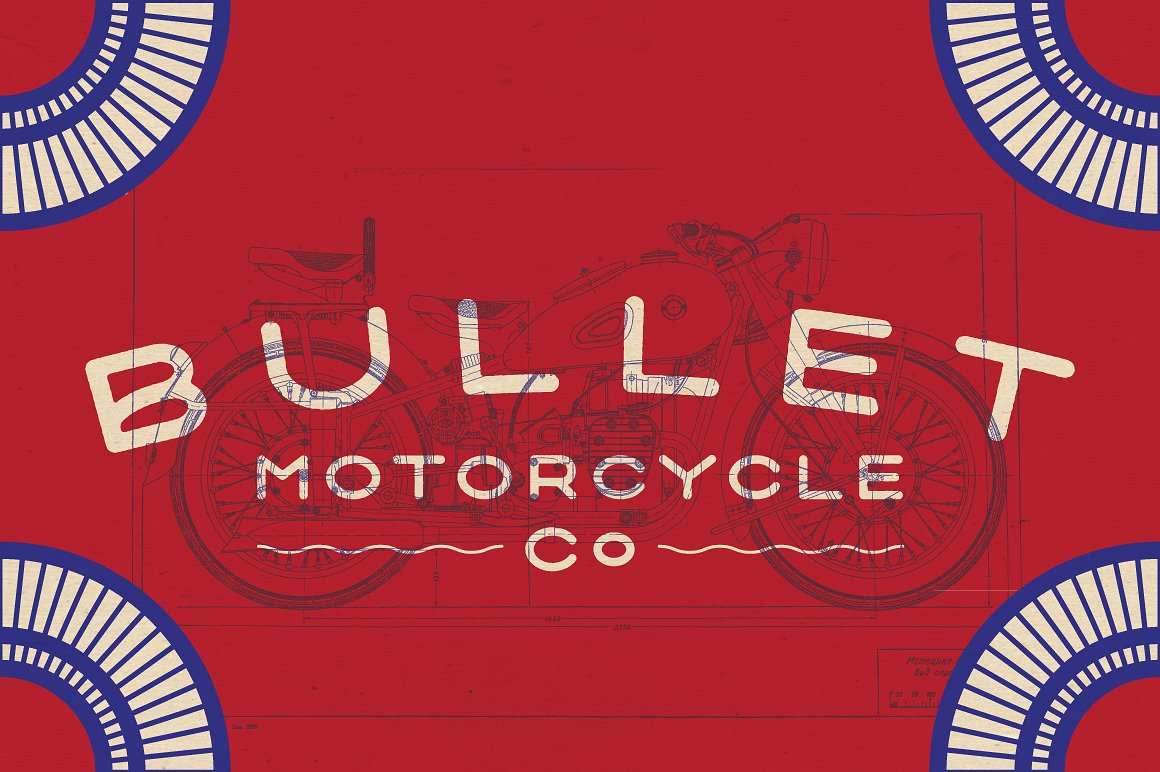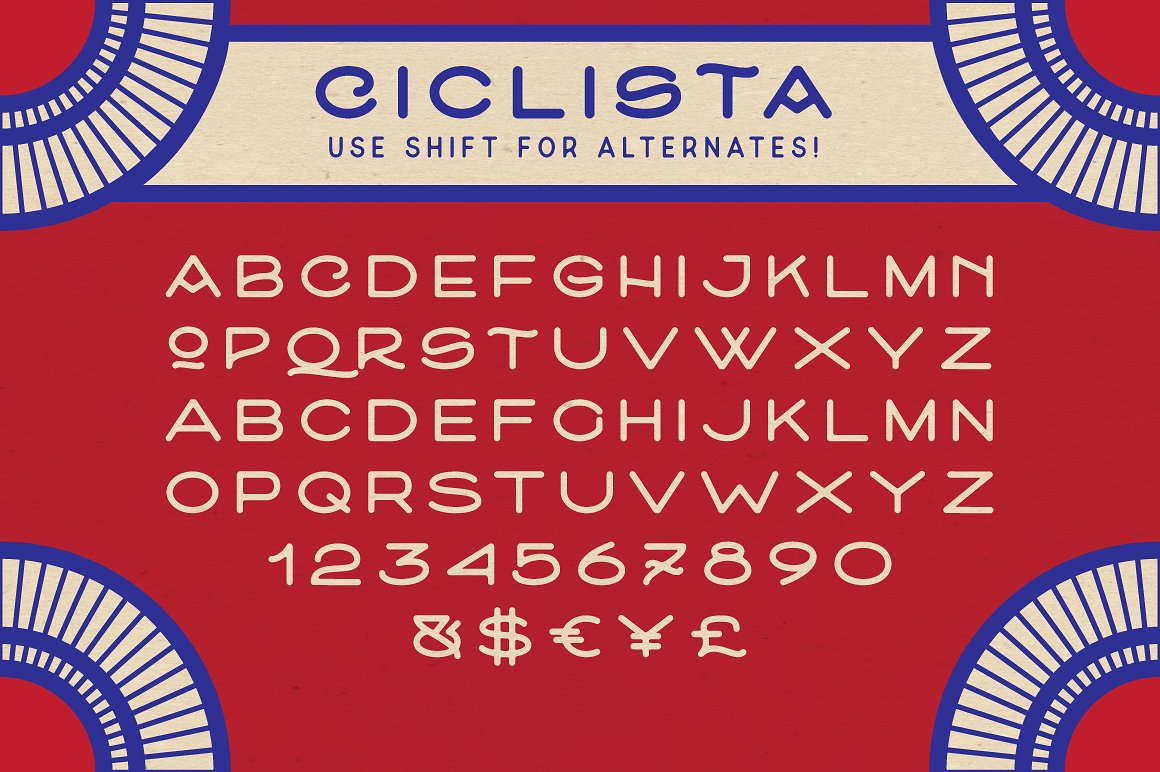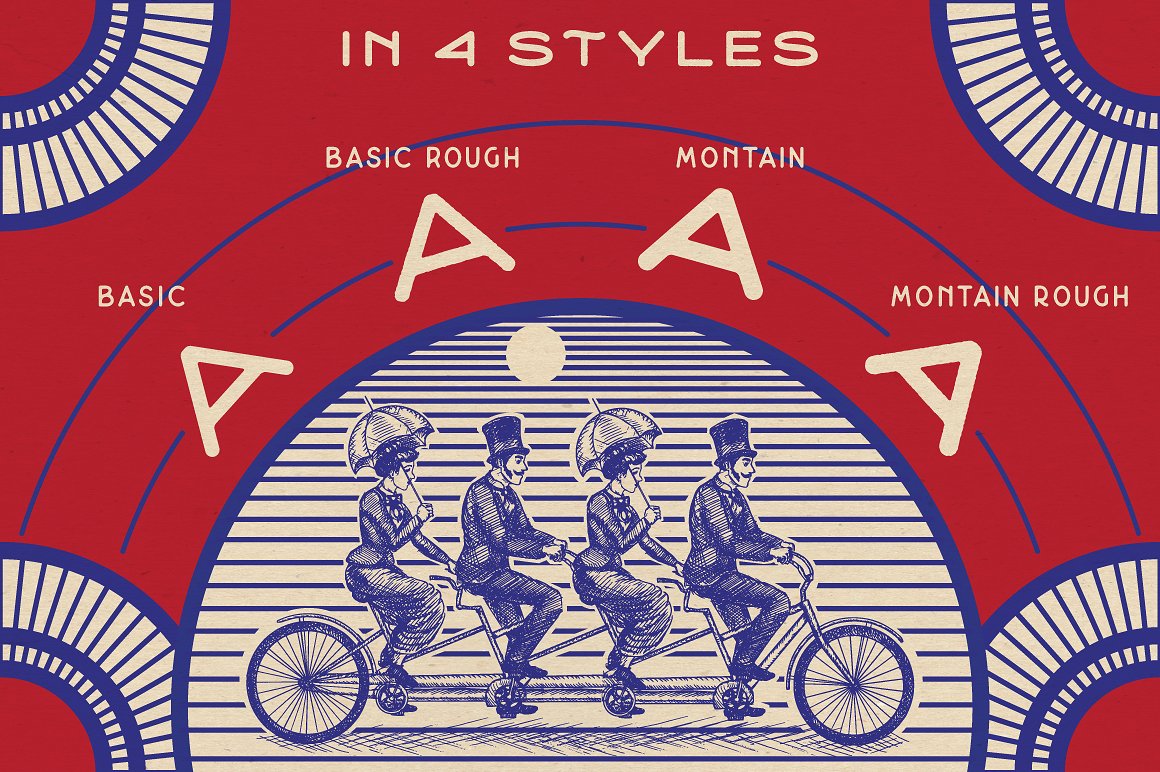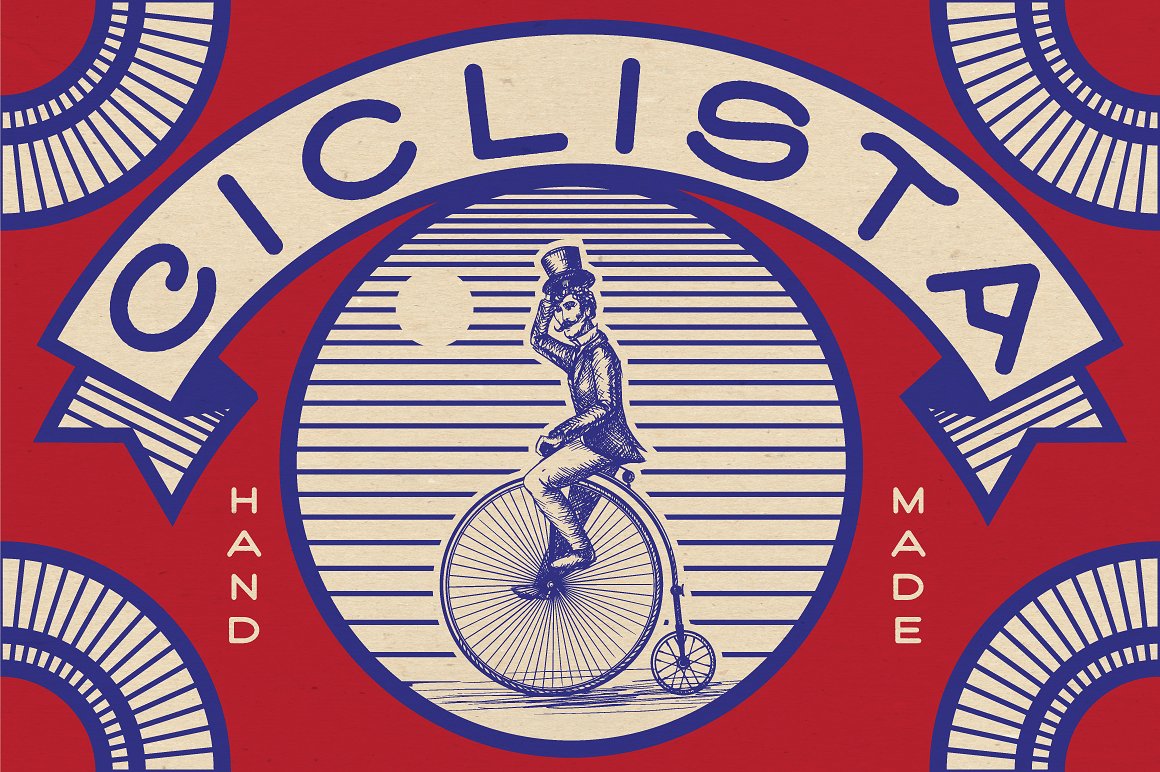
Ciclista Typeface
Introducing Ciclista Font. It is designed by 1871 Project, this is a premium font, are sold on creativemarket, but it was great, it is free today for download. Ciclista is an extended sans-serif font crafted by hand. Using inspiration from vintage packaging and sign painting, its perfect for your next project. Ciclista is an all caps font with 18 different alternates you can use by holding shift, or turning on caps lock. It comes in 4 styles and 2 different weights. Each edge is softened, giving you that perfect hand-crafted feel, and its something your clients will love!